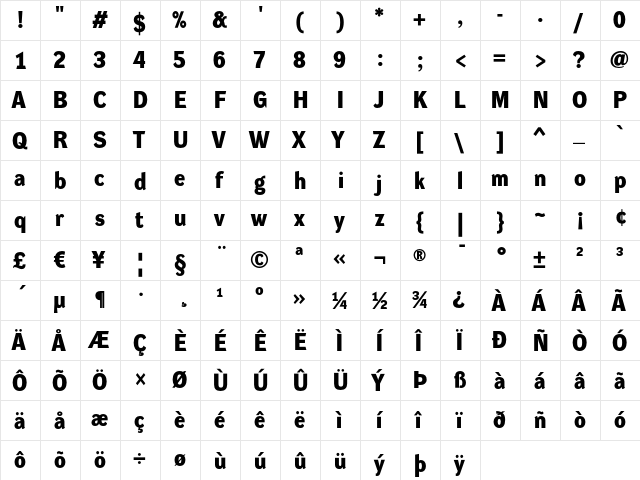
DynaGrotesk D Bold
Design Context for DynaGrotesk D Typeface
DynaGrotesk D takes a clean, functional approach — its unadorned letterforms prioritise legibility and work reliably across screen and print environments. The heavy weight commands attention and anchors typographic hierarchies.
Well-suited to navigation labels, product packaging, and anywhere legibility at scale is essential.
Font Pairing: Use DynaGrotesk D for headlines alongside a lighter-weight sans or serif for body copy to establish clear visual hierarchy.
Pro Tip: Use DynaGrotesk D for UI labels, navigation, and short-form body copy where clean legibility is the priority.